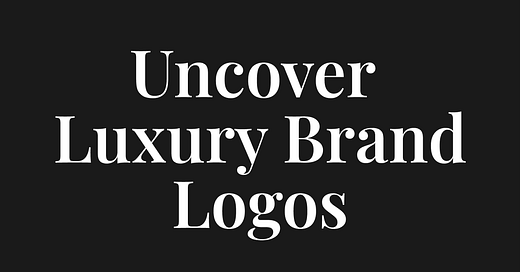
FontDiscovery 🖼️ 57: Uncover Luxury Brand Logos: How to Create a Luxury Brand
Quick looks at what luxury brand logos have in common
What Makes a Luxury Brand?
We start with this famous scene featuring Patrick Bateman from American Psycho…